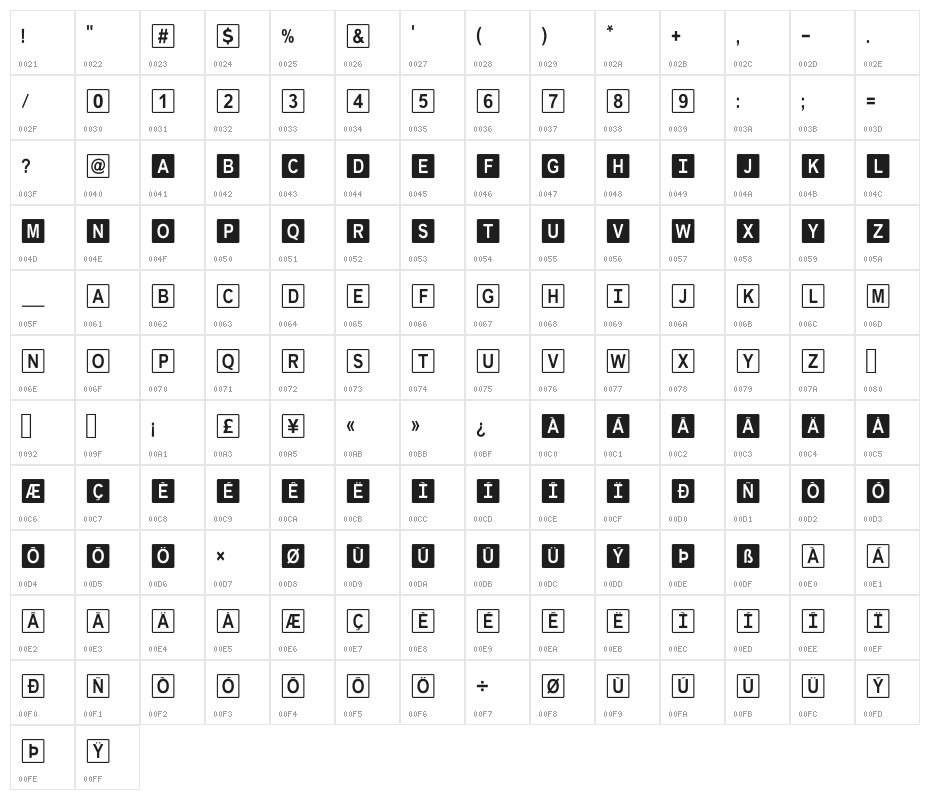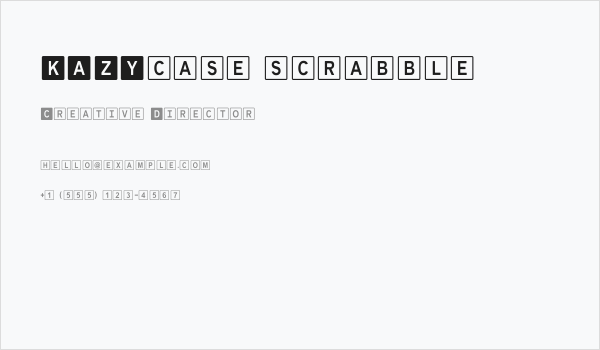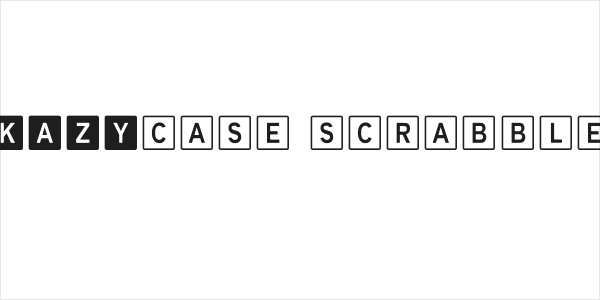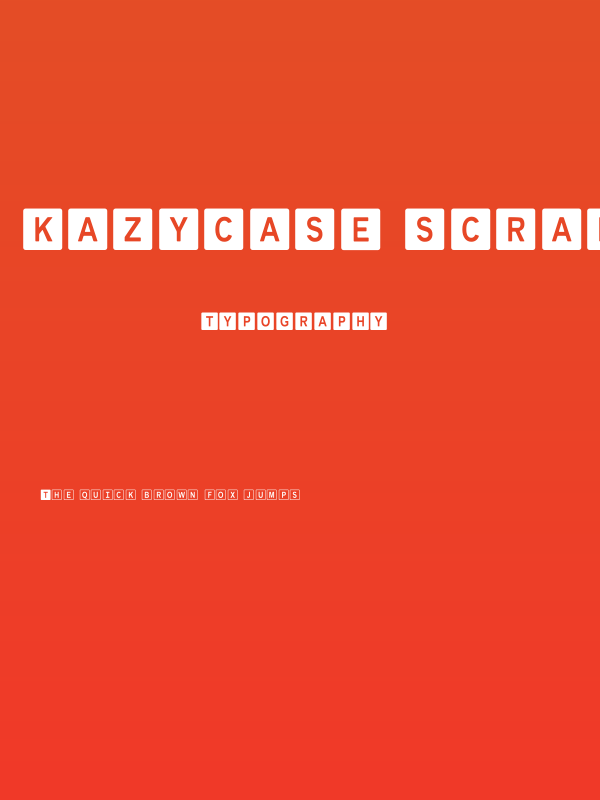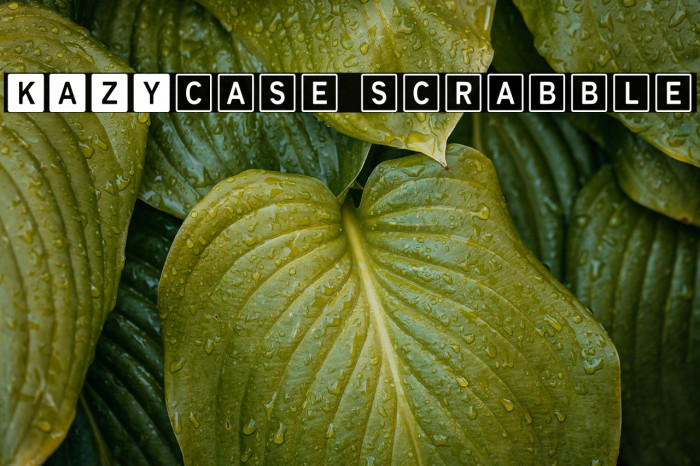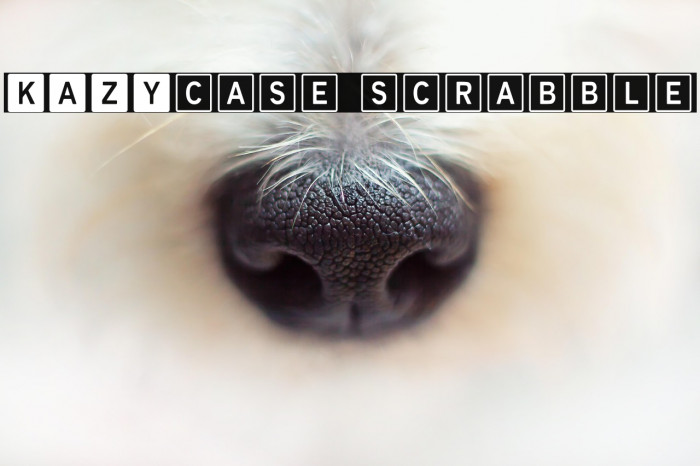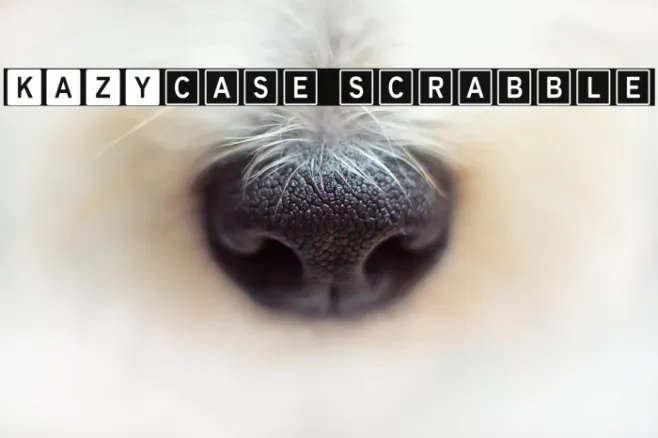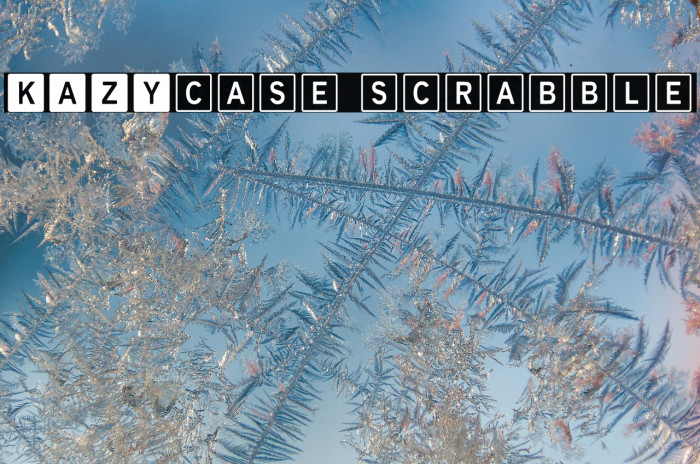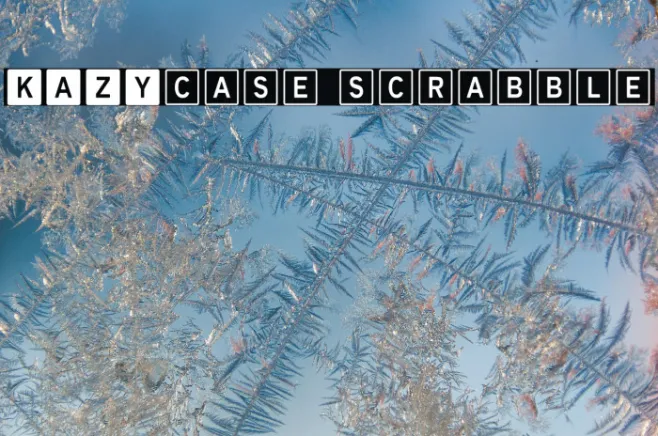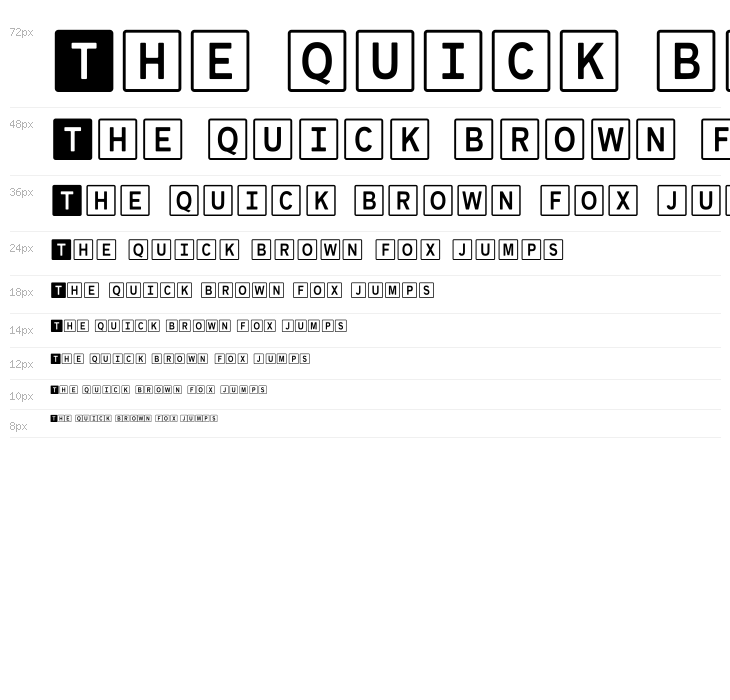
KAZYcase scrabble Font
KAZYcase scrabble Description
This font features bold, uppercase letters enclosed within square tiles, reminiscent of a classic board game aesthetic. The characters are uniformly spaced and presented in a sans-serif style, offering a clean and modern look. The numbers and special characters follow the same design, maintaining consistency across the set. The boldness of the letters ensures high readability, making it suitable for various design applications. The enclosed design adds a playful yet structured element, ideal for projects that require a touch of nostalgia or a game-like theme.
| Overall Style | Playful, Structured |
| Proposed Projects | Ideal for board game designs, educational materials, playful branding, and themed event invitations. |